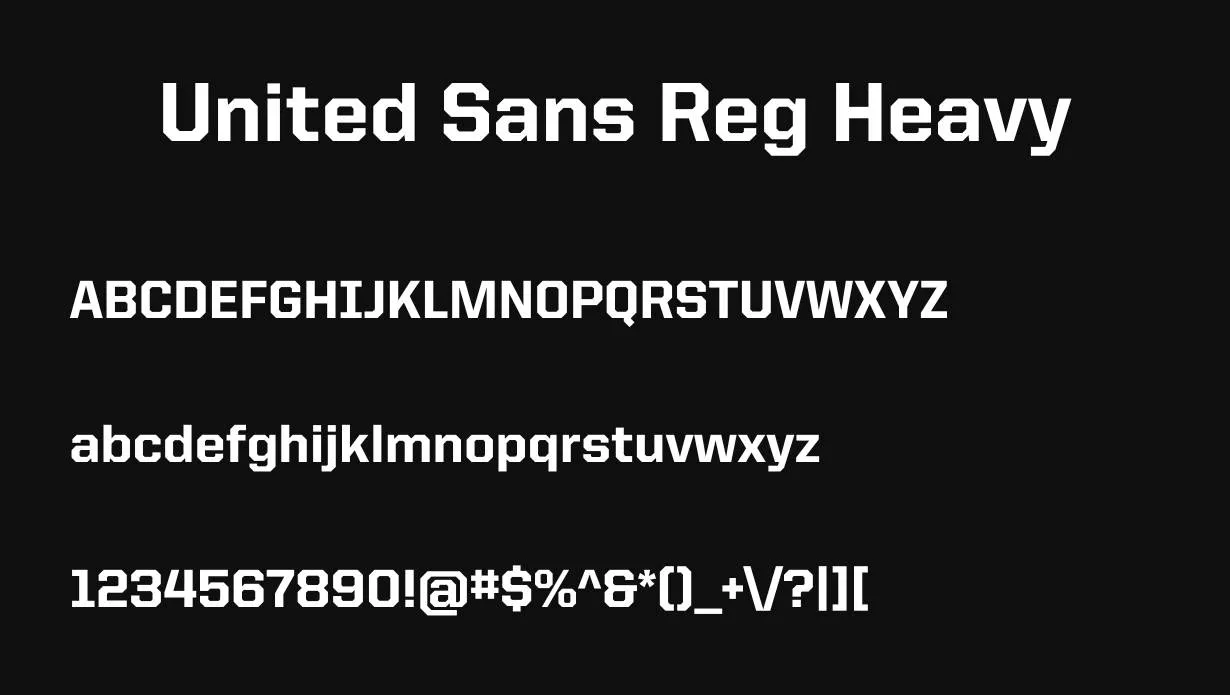
United Sans Reg Heavy is a strong and robust sans-serif font designed to make a powerful impact. Its heavy weight is ideal for projects that demand a commanding and eye-catching presence.
It is often used in headlines, banners, and signage where clarity and visibility are essential. The United Sans Reg Heavy font’s purpose is to convey strength and authority in text, making it an ideal choice for titles and design elements that require emphasis and impact.
United Sans Reg Heavy Font Info
| Name | United Sans Reg Heavy Font |
| Designer | Houseind font foundry |
| Style | Display |